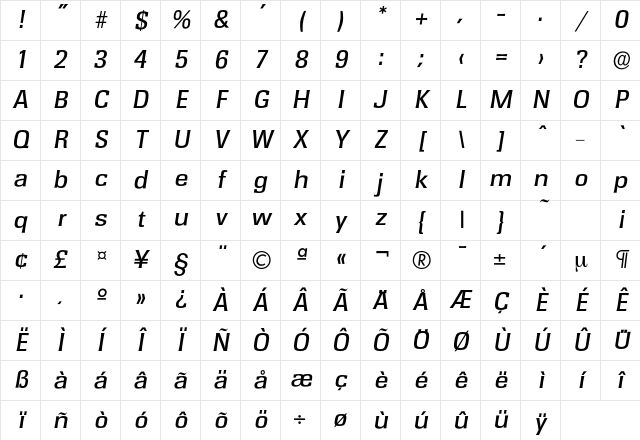
Rochester-MediumIta Regular
Design Context for Rochester-MediumIta
Rochester-MediumIta is a composed and adaptable typeface that performs quietly and consistently across a wide range of design contexts.
Pro Tip: Use Rochester-MediumIta in both headline and body roles to test its range before committing to a single application.